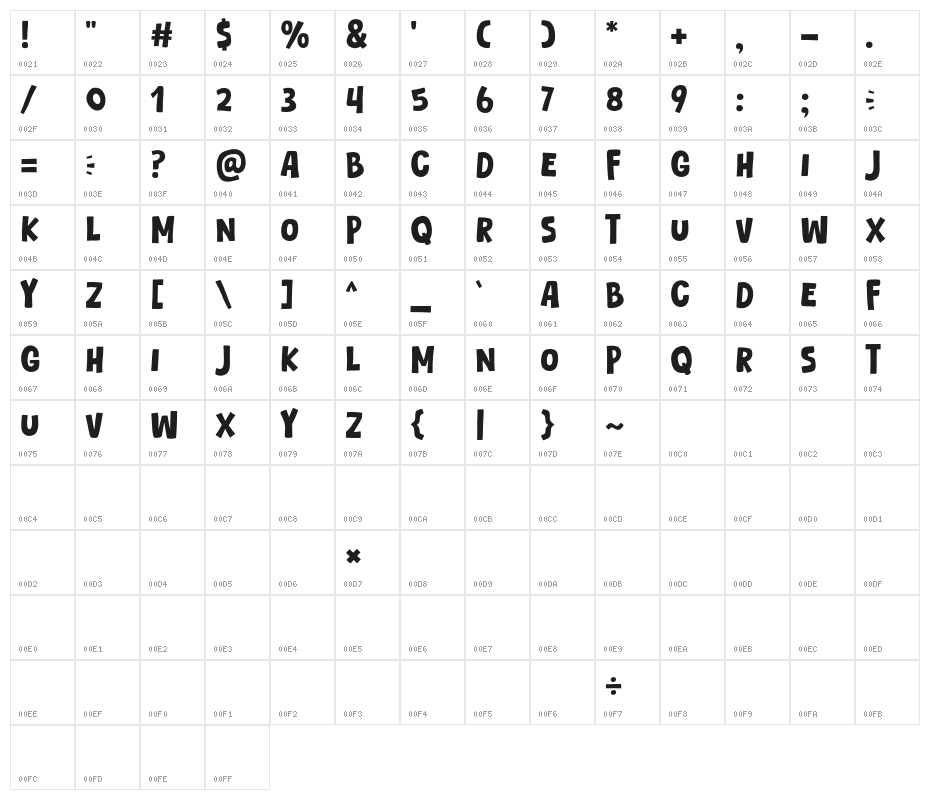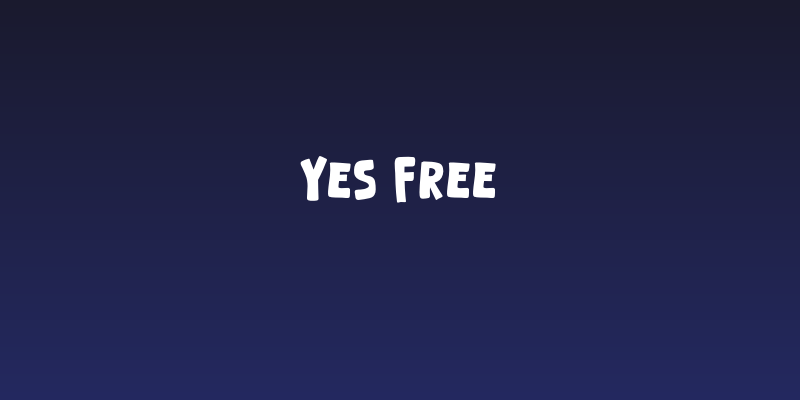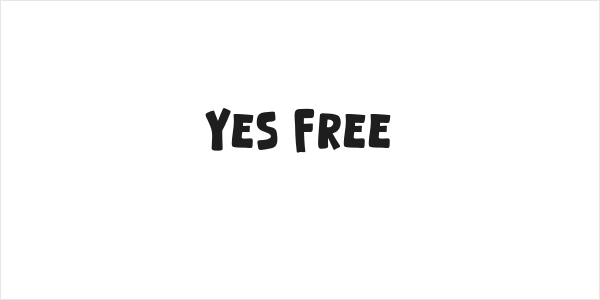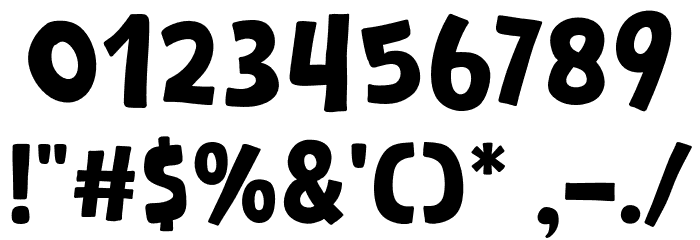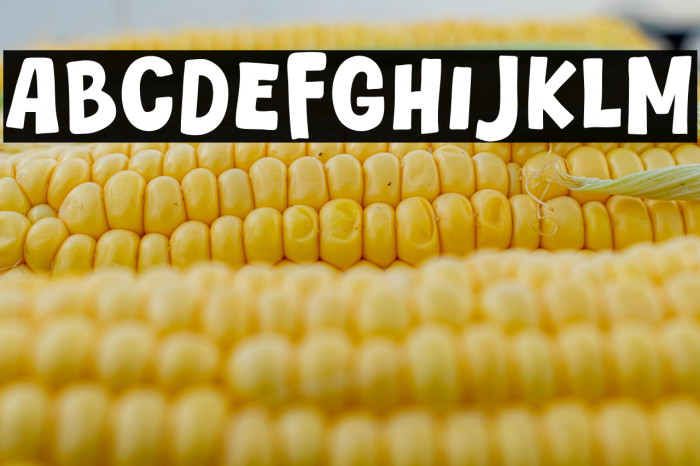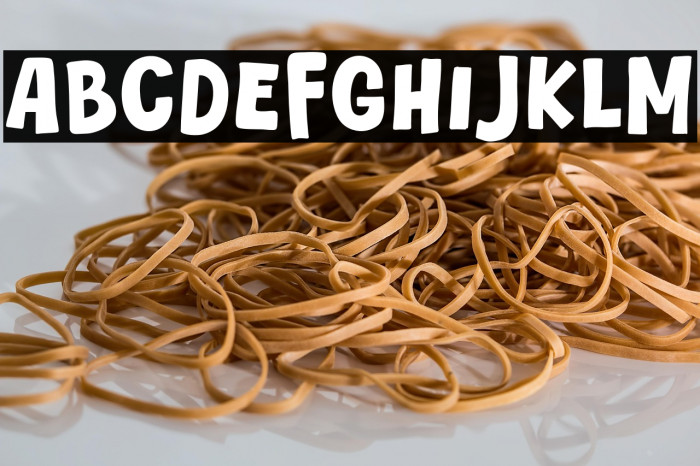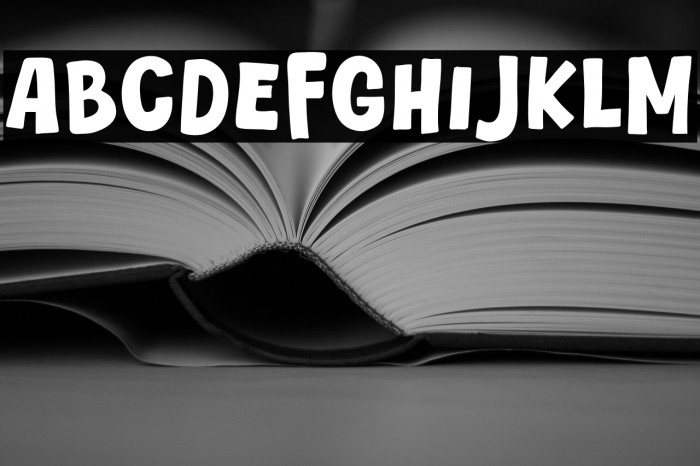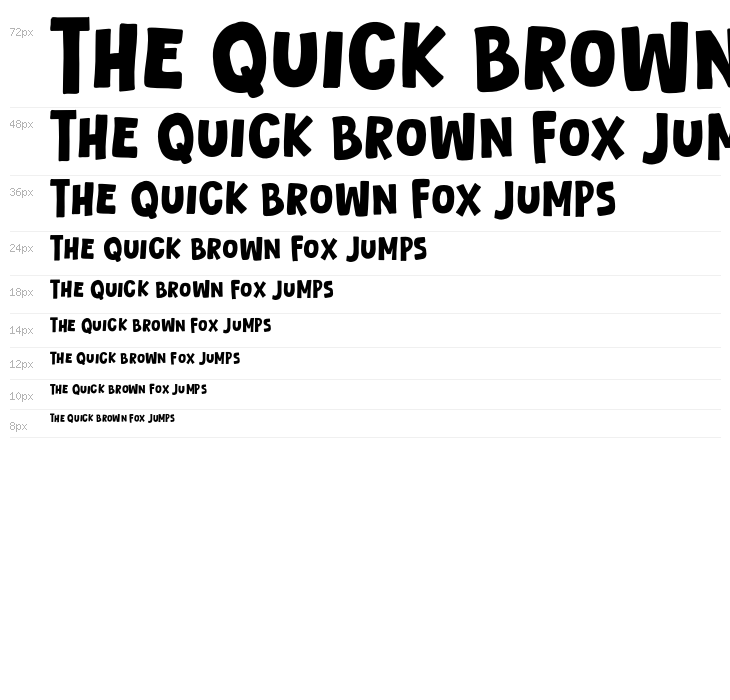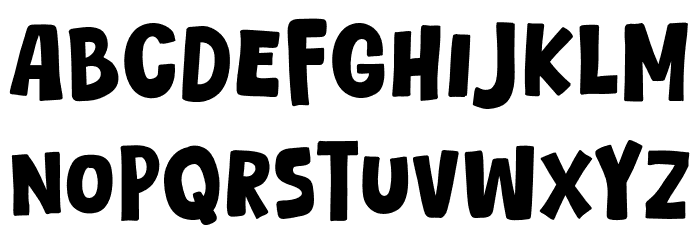
Yes Free Font
| Stil general | Playful and informal |
| Proiecte propuse | Ideal for children's books, playful posters, casual branding, and eye-catching designs. |